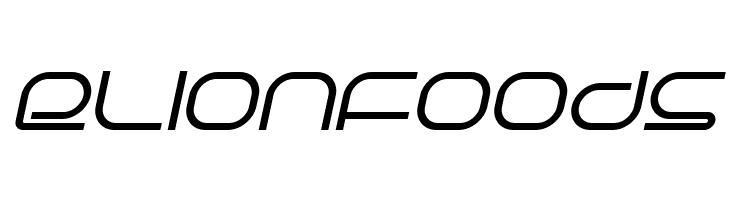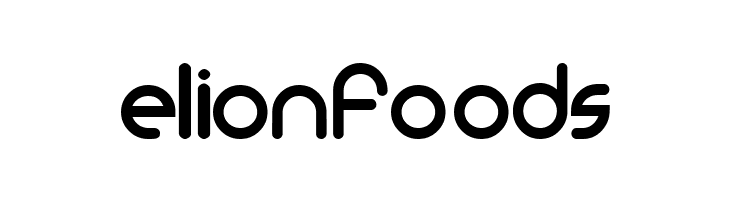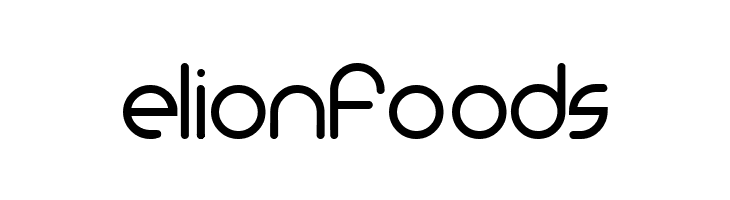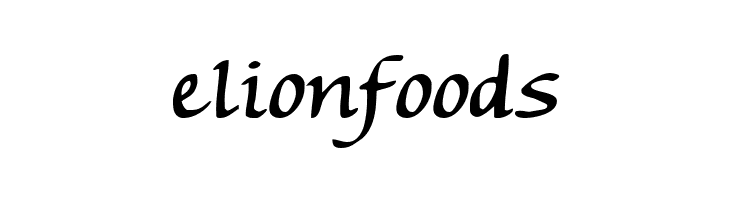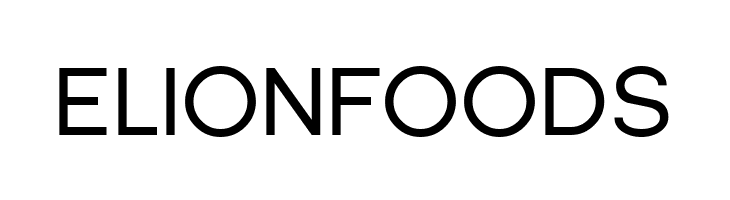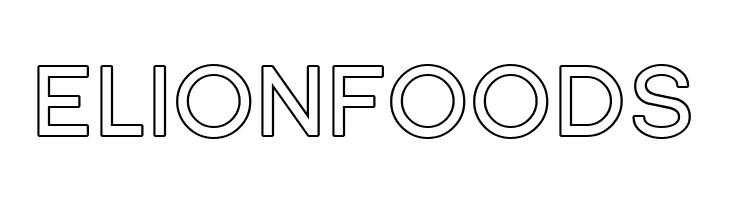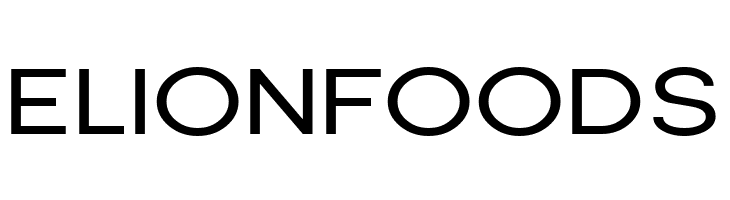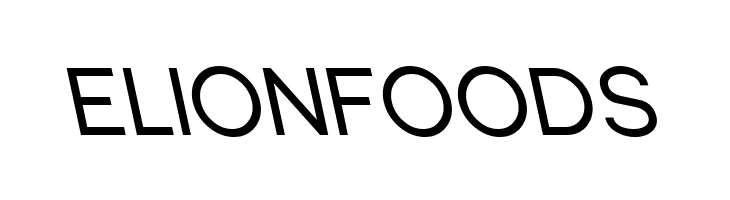
A sleek, modern italic font with a futuristic design and consistent line weight.
A modern, rounded font with smooth curves and a clean, balanced aesthetic.
A modern, geometric font with rounded edges and uniform width.
A dynamic and flowing script font with elegant curves and whimsical flourishes.
A clean, modern sans-serif font with uniform strokes and high legibility.
A modern, geometric sans-serif outline font with uniform stroke width.
A clean, modern sans-serif font with consistent stroke width and balanced spacing.
A modern, italic sans-serif font with clean lines and balanced proportions.